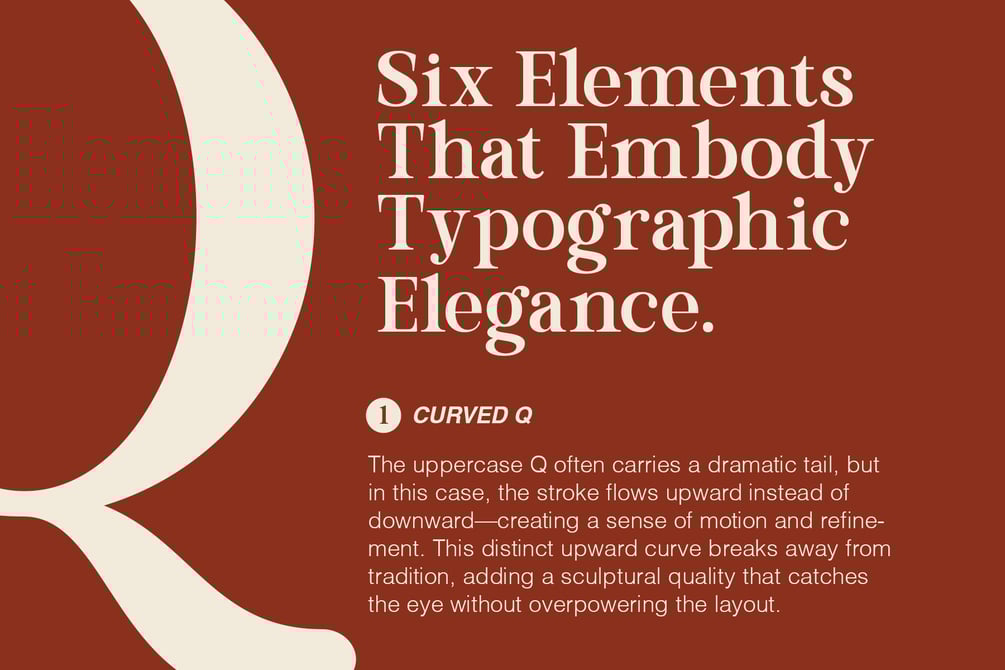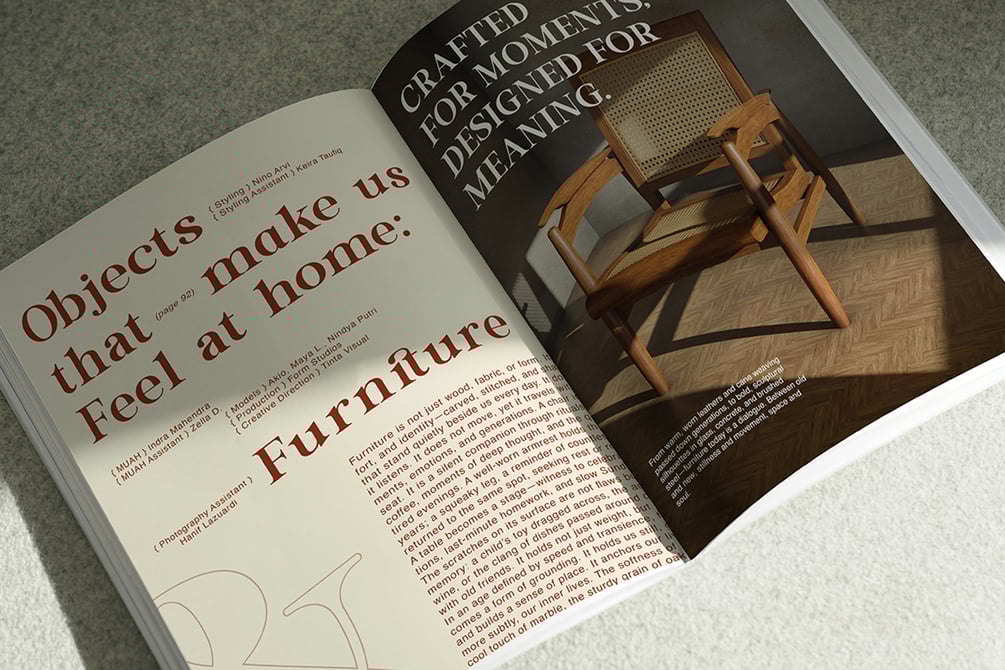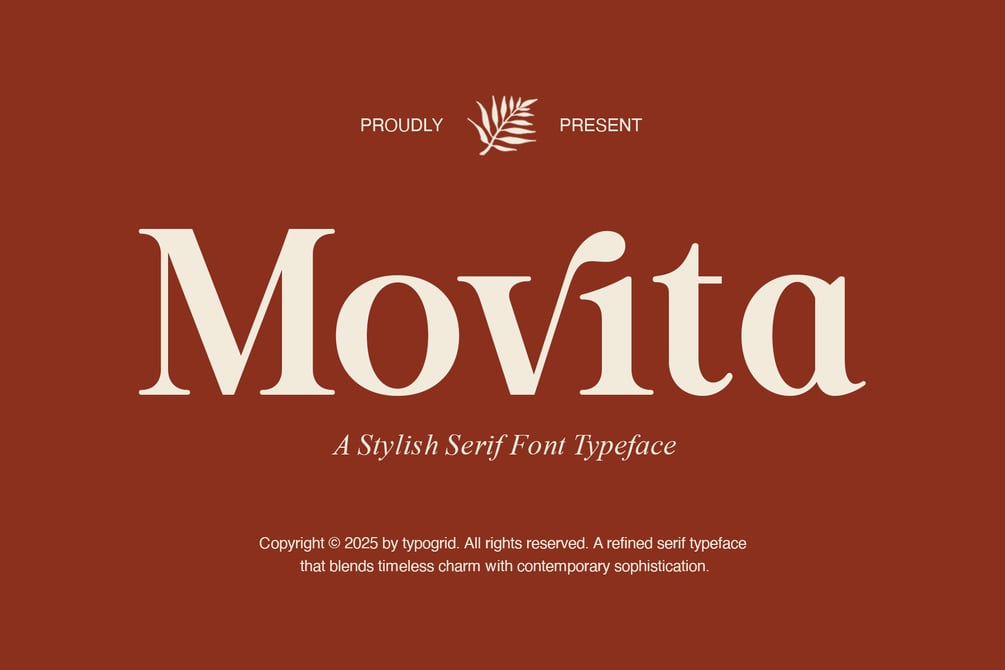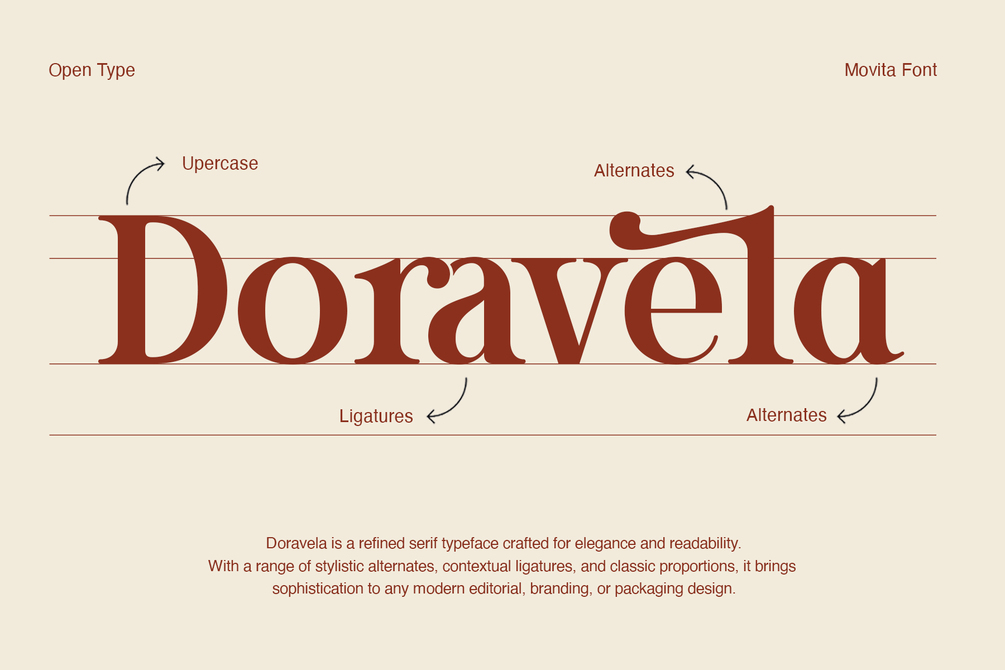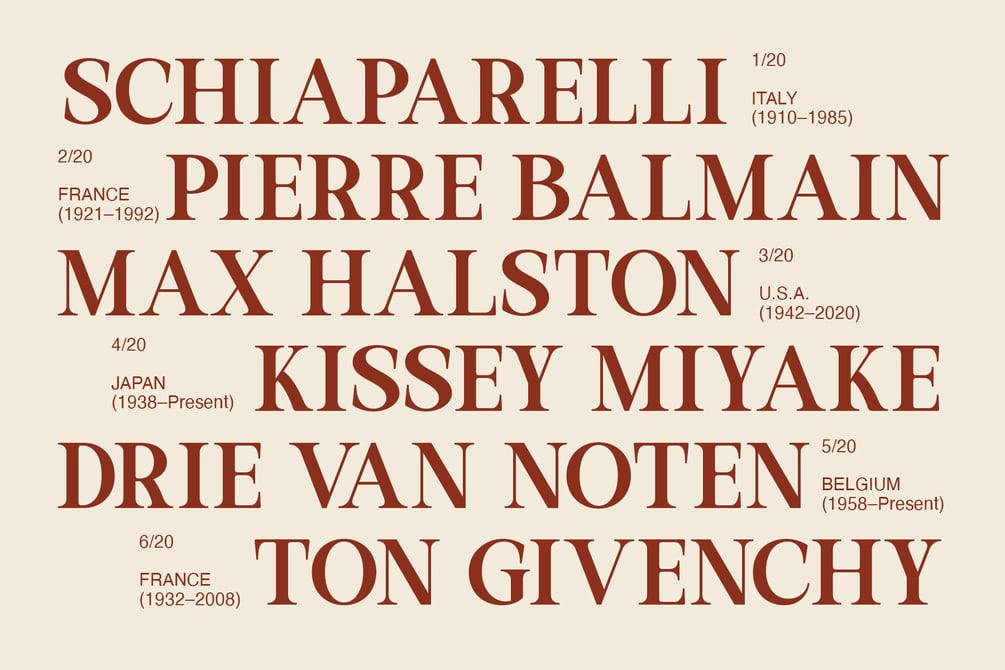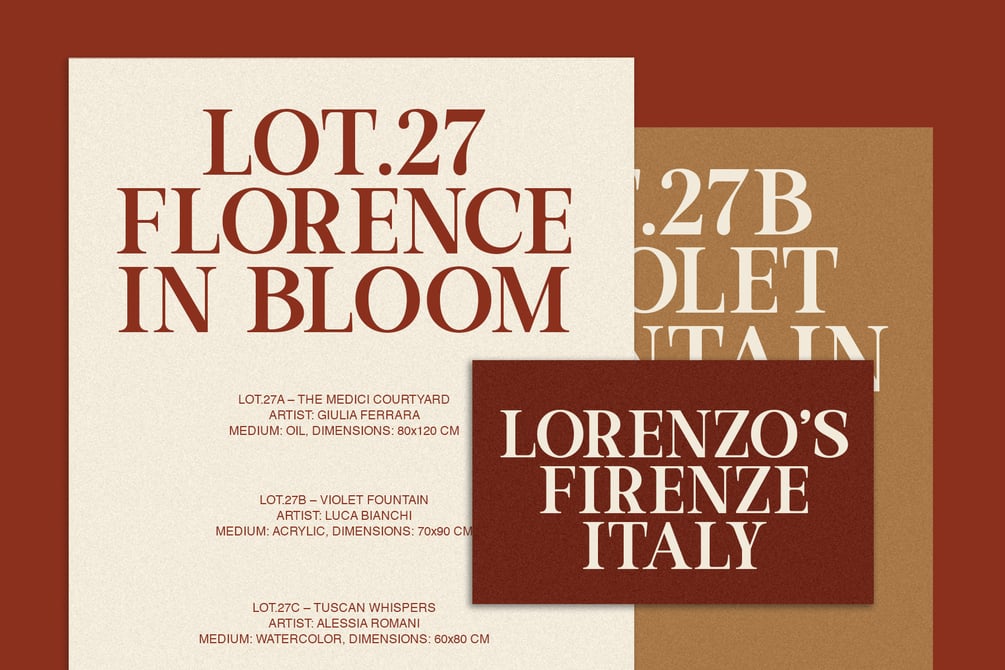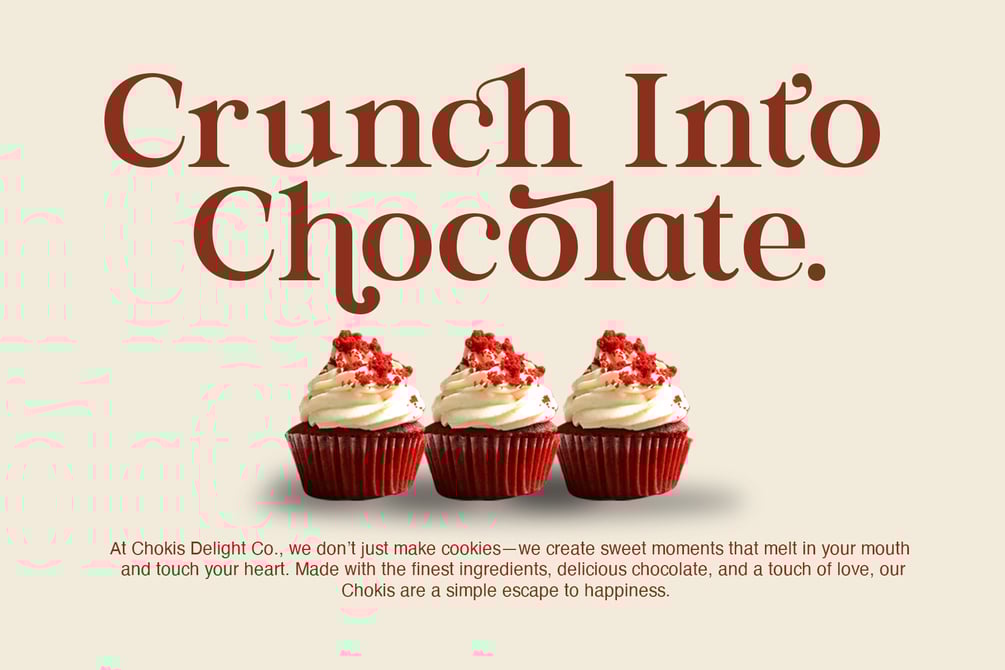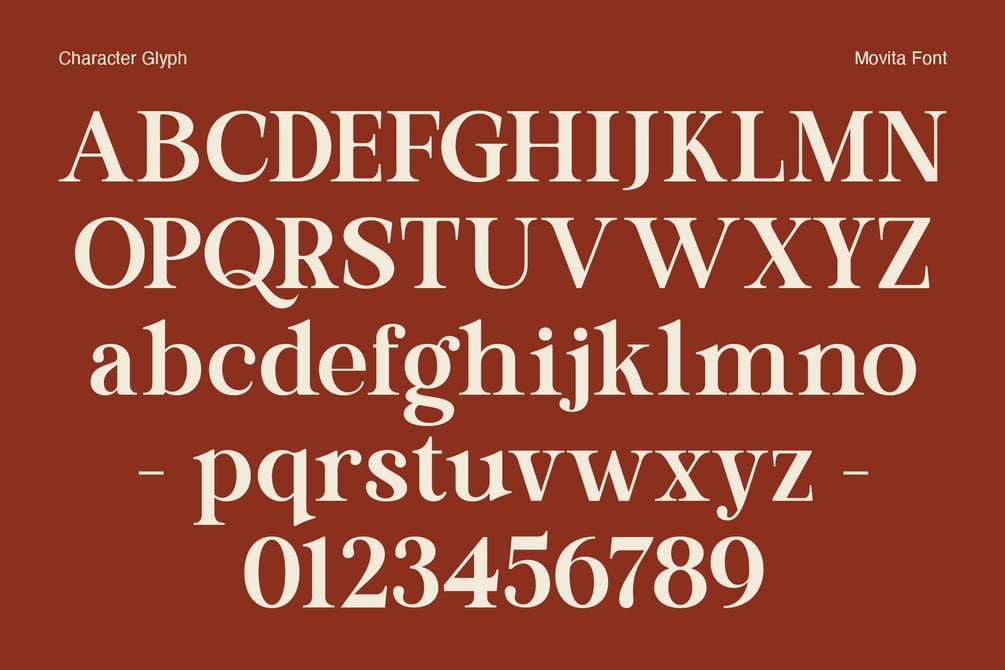
TG Movita - Stylish Font Typeface
Have you ever longed for a typeface that feels both stylish and timelessly elegant? Meet Movita—a refined serif font designed to elevate your creative projects.
Take a closer look at those graceful curves and harmonious proportions. Movita isn't just another serif—it's a statement of sophistication, created to blend classic charm with a fresh, contemporary touch.
Imagine your logo, headline, or invitation set against a Movita backdrop. It's more than just a letterform—it's an experience. Whether you're rebranding, designing editorial content, or setting the tone for a special event, Movita offers the perfect balance of tradition and modern flair.
Why settle for ordinary when you can command attention with something this unique? Go ahead—let your next design speak for itself with Movita's graceful presence.
Ready to see what elegance can do for your work? Movita is here to help your story shine, one stylish letter at
a time.Crafted with care and precision, TG Movita includes:
• Beautiful ligatures for seamless letter combinations
• Elegant alternates to add expressive typographic flair
• Strong vertical rhythm and optical balance
• Single weight with refined proportions for clear legibility
From magazine spreads and lookbooks to boutique logos and beauty packaging, TG Movita brings a sense of drama, refinement, and visual harmony to every layout.
Features:
• Serif Typeface
• Single Weight
• Ligatures & Alternates Included
• Multilingual Support
• Uppercase & Lowercase
• Punctuation & Symbols
• Ideal for Branding, Editorial Design, Packaging, and Display Use
Where timeless beauty meets modern form — TG Movita speaks with elegance, confidence, and intention.
Alternate & Ligature
+35
Multilingual Support
Support 👍🏻
All Glyph
+210 Glyphs